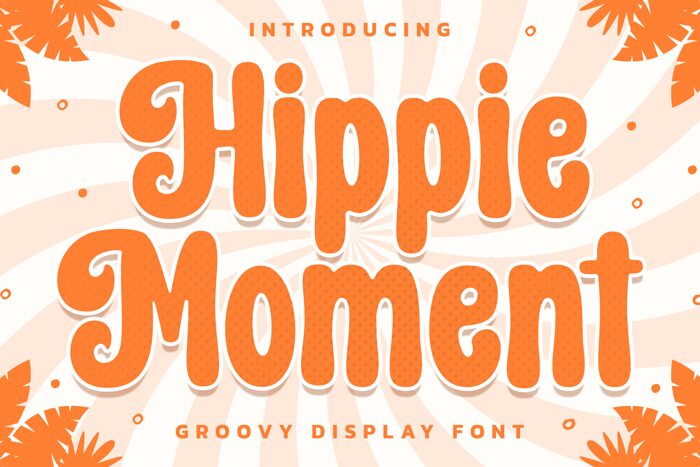
Hippie Moment
Hippie Moment, designed by Hoperative, is a bold and groovy display font that adds a vibrant retro touch to any project. With its semi-condensed width, this font is perfect for eye-catching headlines, posters, album covers, and branding materials. Its playful and expressive design effortlessly captures the free-spirited essence of the 60s and 70s counterculture. Whether you're creating designs for music festivals, vintage-inspired fashion brands, or nostalgic-themed parties, Hippie Moment will transport your audience back to the era of peace and love with its captivating style. Get ready to groove with this dynamic typeface!